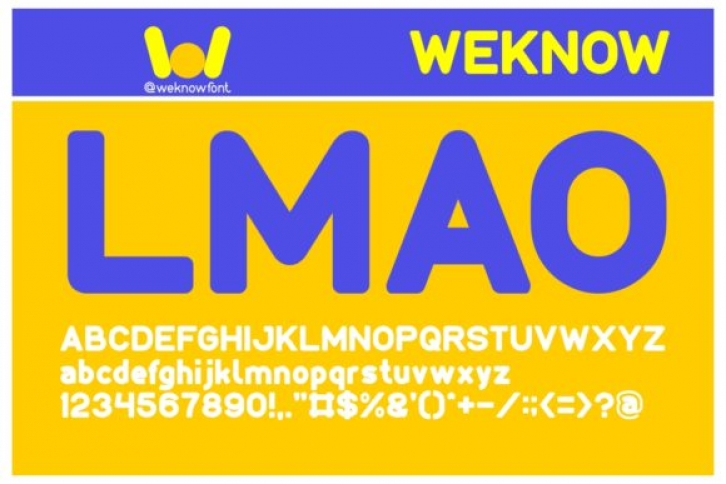
Lmao is a simple and bold display font. Whether you’re using it for crafting, digital designing, presentations or greeting cards making, it’s perfect!